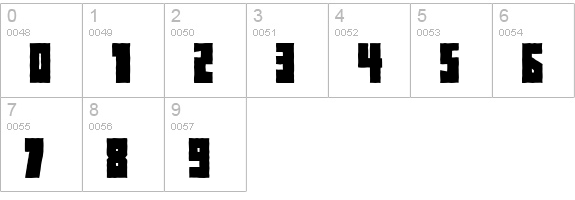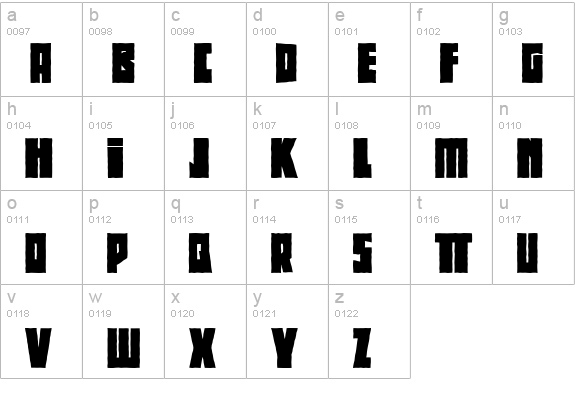
BeethovenRough Font Details
BeethovenRough font exudes a rugged and bold aesthetic, perfect for adding a touch of raw personality to your designs. Its rough edges and strong strokes give off a sense of strength and resilience, making it an ideal choice for projects that require a bold statement. Whether you're designing posters, logos, or branding materials, BeethovenRough font will surely make your text stand out. The best part? BeethovenRough font is completely free to download at FontsMarket.com. So go ahead and unleash your creativity with this unique and impactful typeface. Let BeethovenRough font be the voice of your design, speaking volumes with its distinctive style and rugged charm. Download it now and make a lasting impression with your next project.